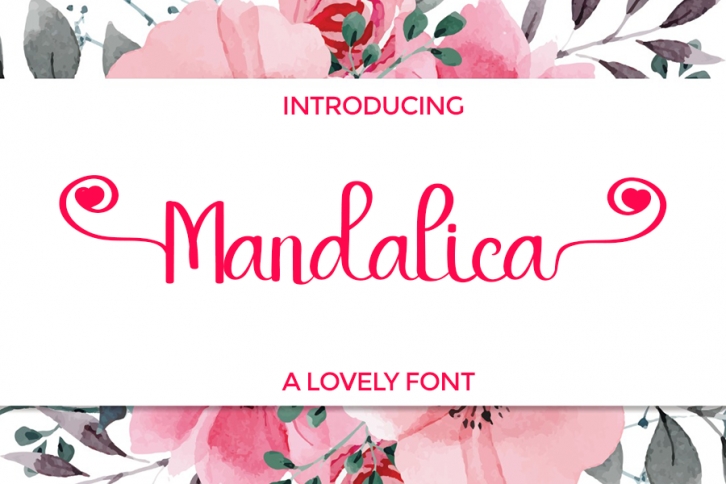
Mandalica is a lovely and timeless handwritten font. It is the best choice for creating eye catching logos, branding and quotes. This font is PUA encoded which means you can access all of the glyphs and swashes with ease!Â